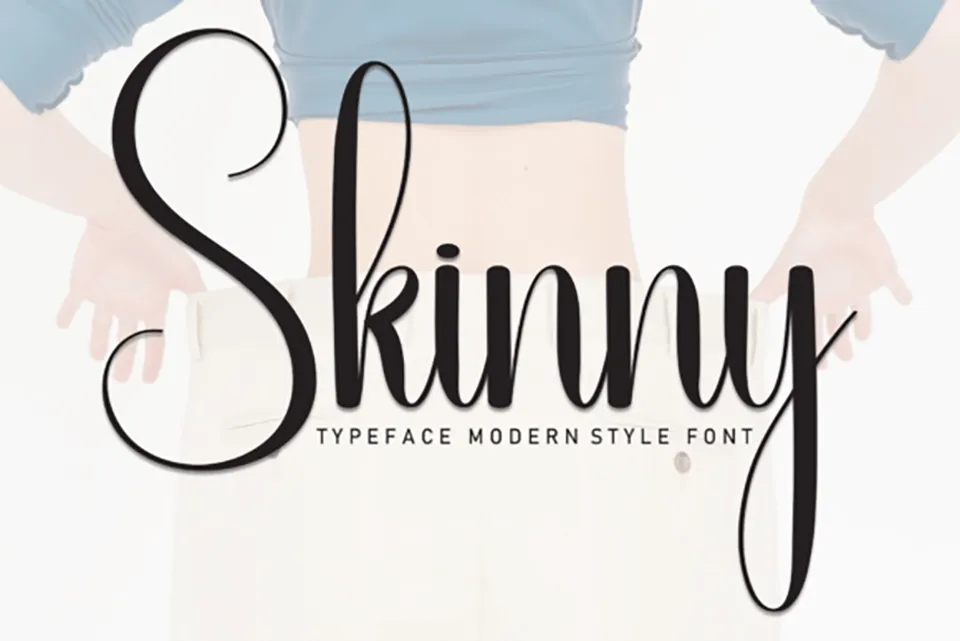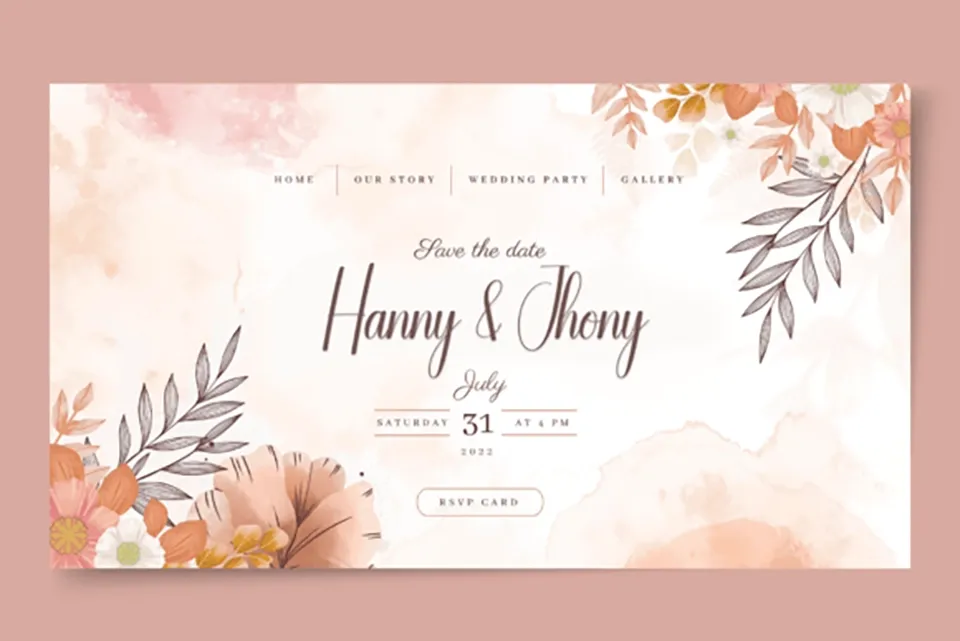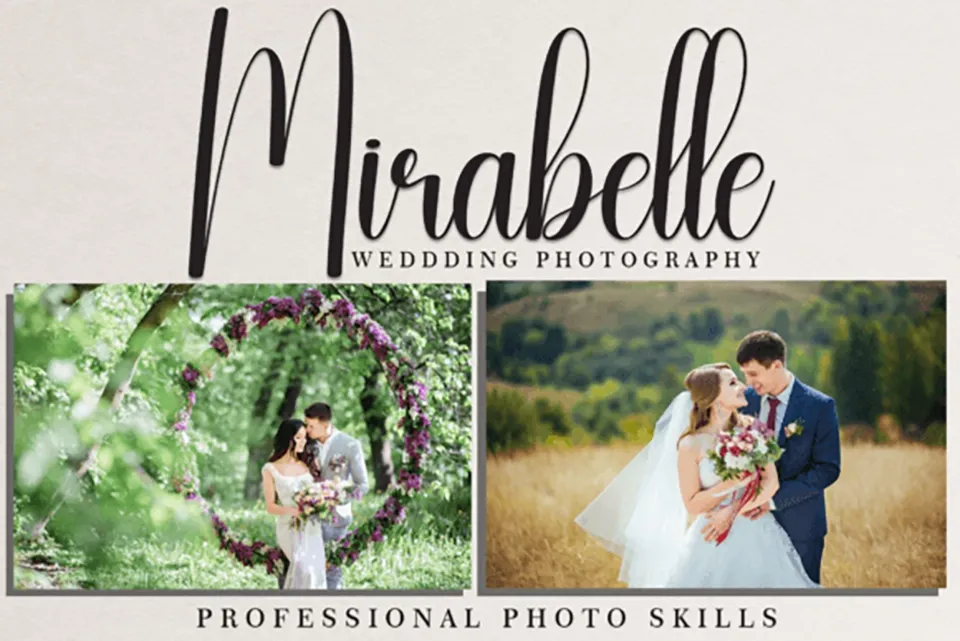
Skinny Script Font
Skinny Script Font is a charming and approachable handwritten font with a fresh, playful vibe. Perfect for wedding invitations, greeting cards, or any design that calls for a delightful and whimsical touch!